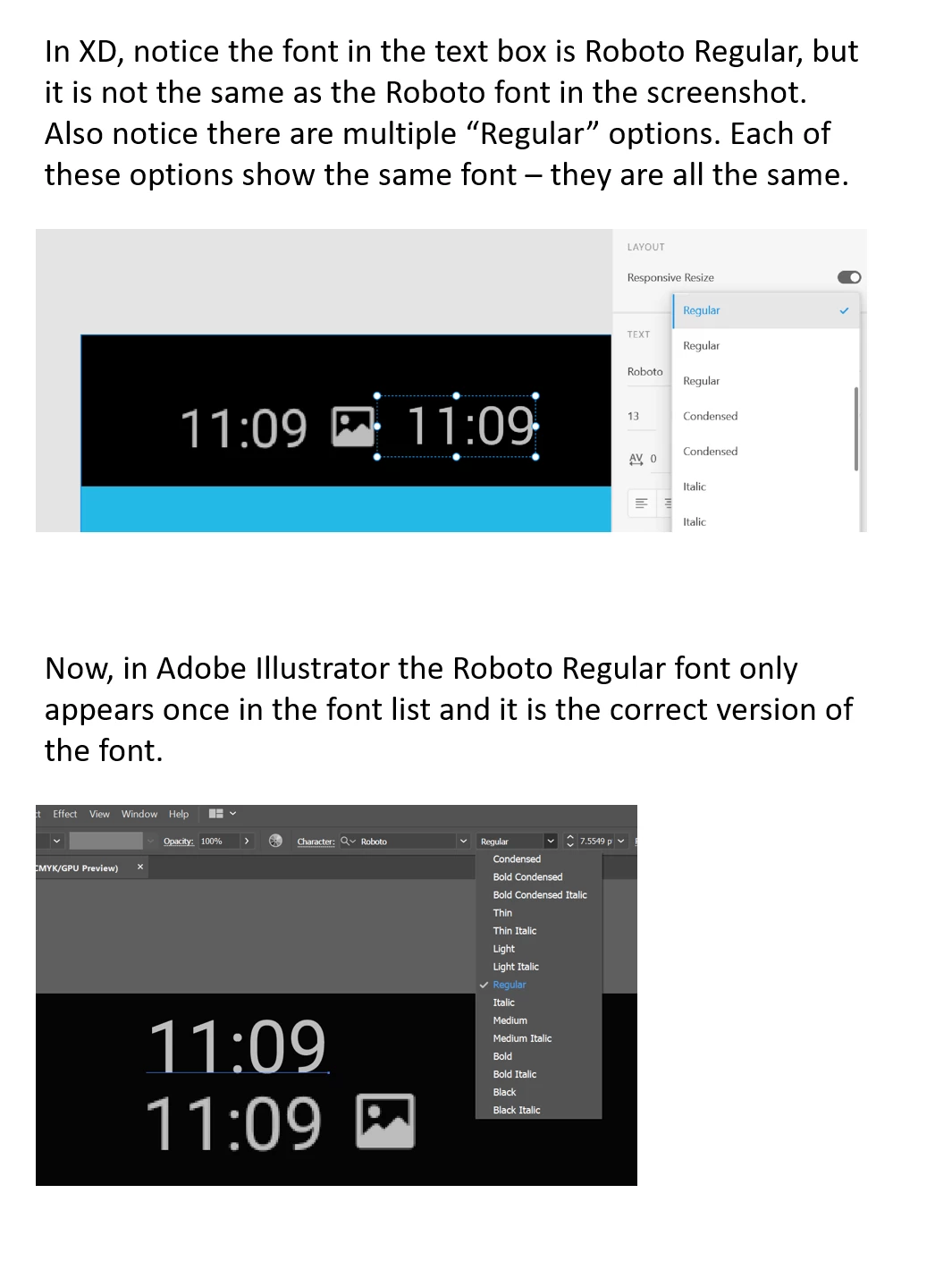
Adobe XD displays different Roboto font than Adobe Illustrator - why?
I am trying to mockup some Android screens using Adobe XD and the Roboto Regular font. However, XD keeps using the wrong Roboto font. This is especially noticable in the "1s" and "9s". (see attached)
Interestingly enough, the Roboto Regular font does appear correctly in Adobe Illustrator. Also, when my colleague opens the XD file on her machine, she is able to see the correct font.
When I open the font families in XD I can see 3 "Regular" options for Roboto. Each one I select is the same, and they are all wrong. When I open families in AI, there is just one for Regular and it is correct.
How and where is XD getting this font? How can I force it to use the correct Roboto font?